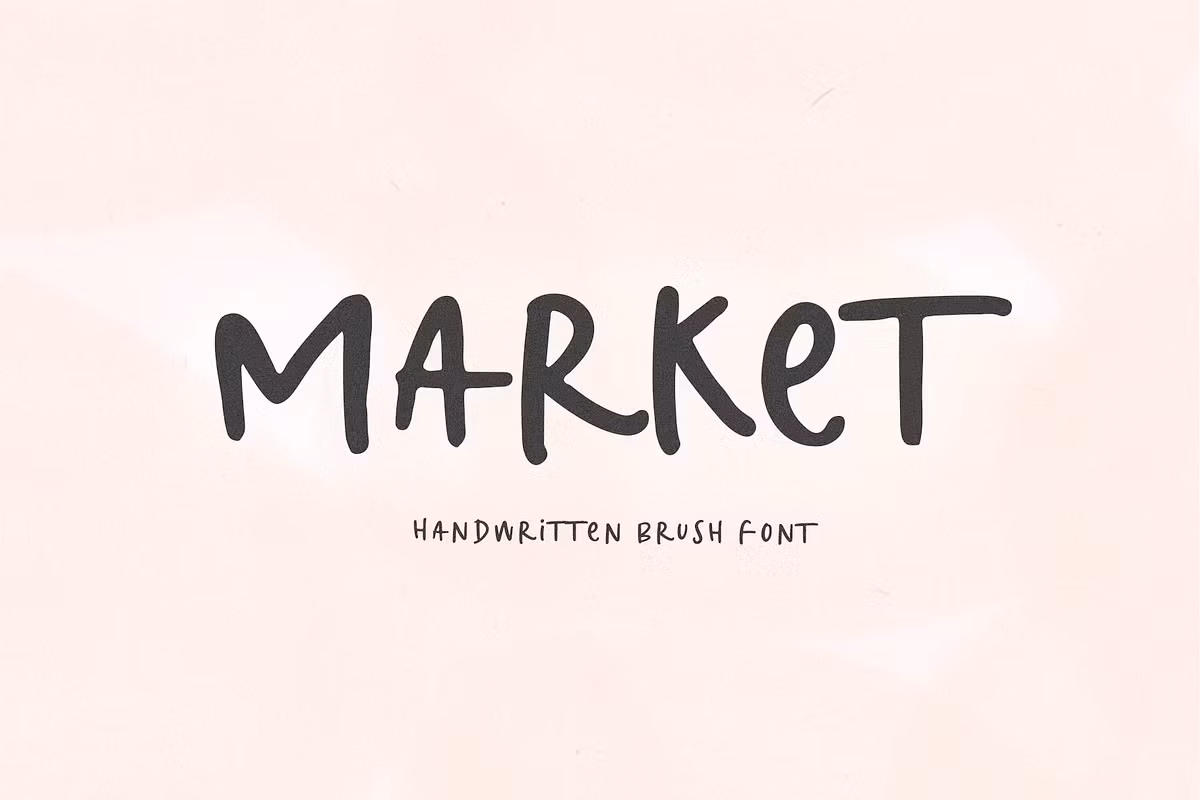
Market | Handwritten Font Free Download is a charming and playful handwritten typeface that brings a warm, personal touch to your designs. With its natural flow, friendly strokes, and casual feel, this font is perfect for branding, logos, packaging, social media graphics, and creative content that needs a handwritten, approachable look.
The font’s organic design makes it ideal for projects that need to feel authentic and inviting. Whether you’re designing a boutique brand, a cozy café logo, or personalized stationery, Market adds character and authenticity to your typography.